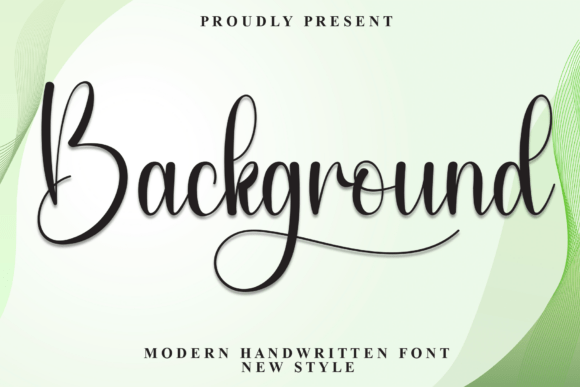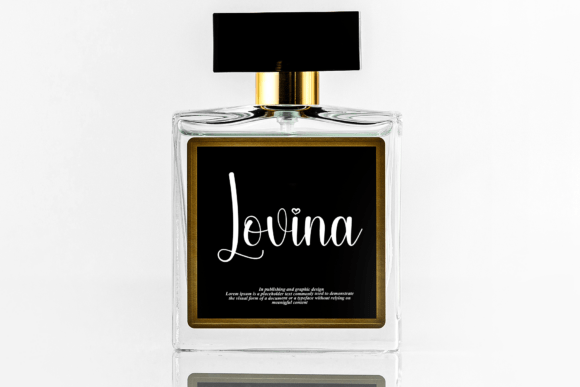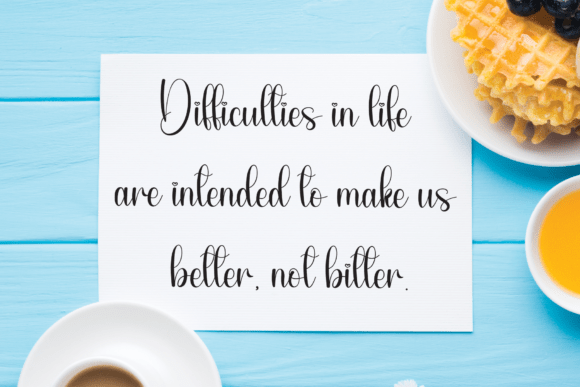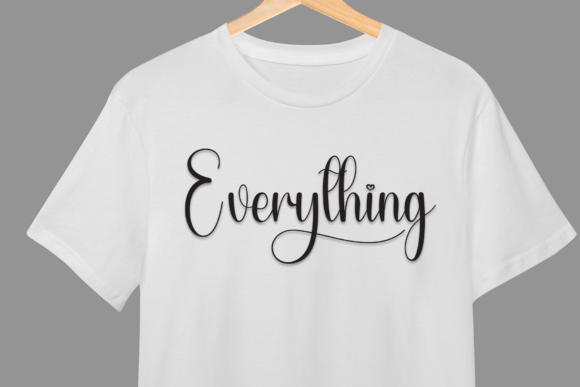
About the Background Font
The Background Font is here to transform your projects with its distinctive character and style. This display handwritten font bursts with personality and charm, capturing the warmth of real handwriting with bold, eye-catching strokes. Designed to stand out while maintaining a natural flow, it’s perfect for logos, social media graphics, posters, and anything that calls for a personal, expressive touch. Whether you’re crafting a heartfelt quote or branding a creative product, this font brings authenticity and flair to your design.
Background Font’s bold strokes and expressive nature make it ideal for headlines, short text blocks, and impactful branding elements. It excels in applications like posters, social media posts, and packaging where visual impact is key. However, its handwritten style is less suitable for body copy or UI elements requiring high readability over extended text lengths.
The font’s inherent energy pairs well with clean, geometric sans-serifs like Futura or Roboto for a balanced contrast, or with a classic serif like Garamond for a touch of refined elegance. For a more playful approach, consider pairing it with a script font like Allura, but use it sparingly to avoid visual clutter.
Background Font projects a friendly, approachable, yet confident personality. It’s perfect for brands focused on creativity, craftsmanship, or community engagement, where authenticity and a personal touch are valued.